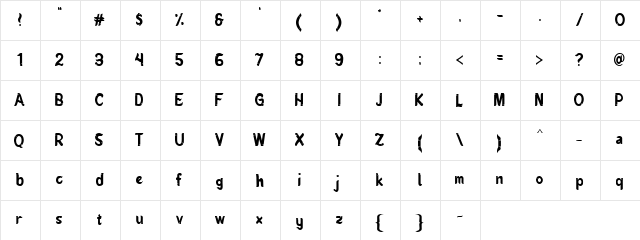
Mendung Regular
Design Context for Mendung Typeface
Mendung takes a measured approach to typography — its balanced proportions and neutral character make it a reliable workhorse for both digital and print work.